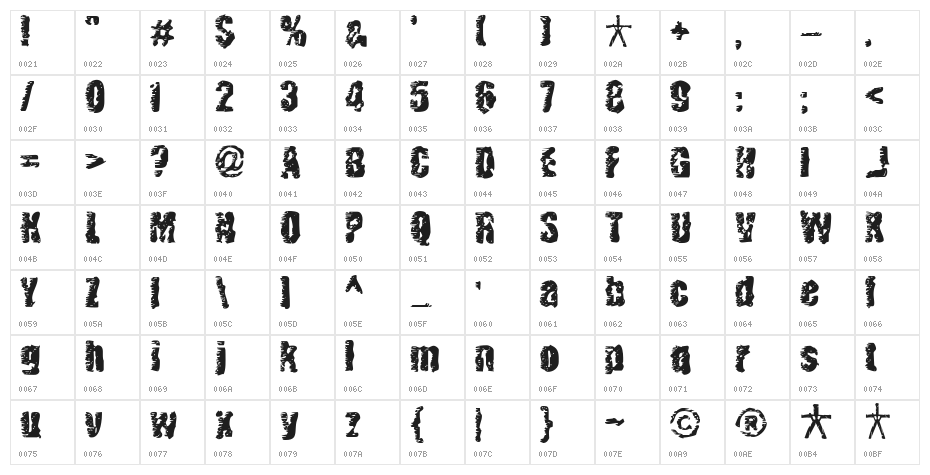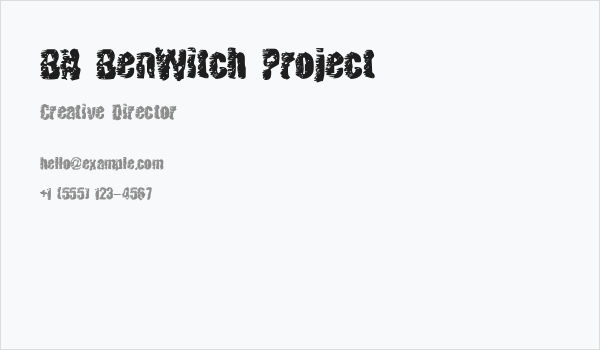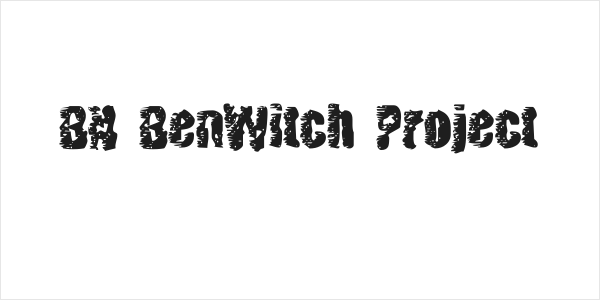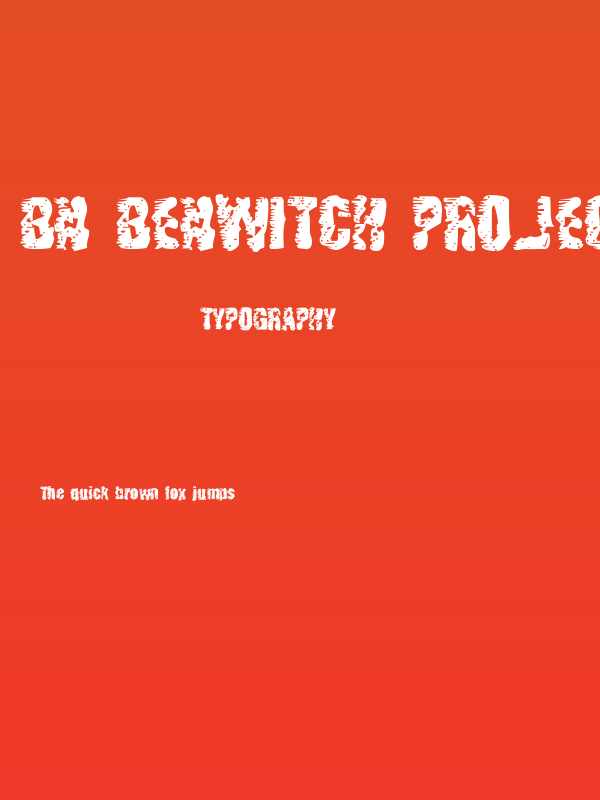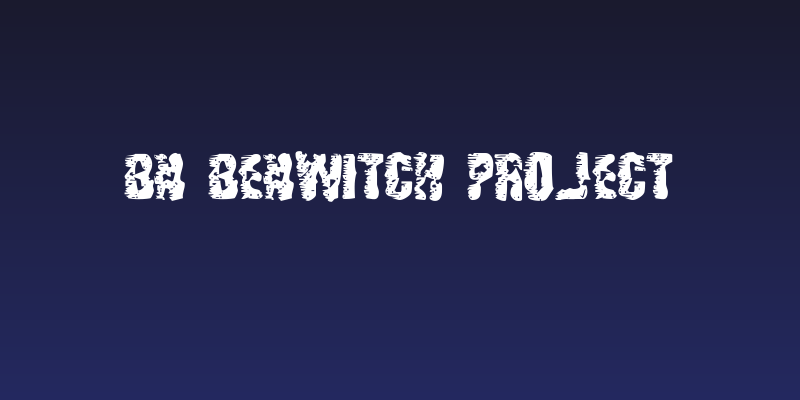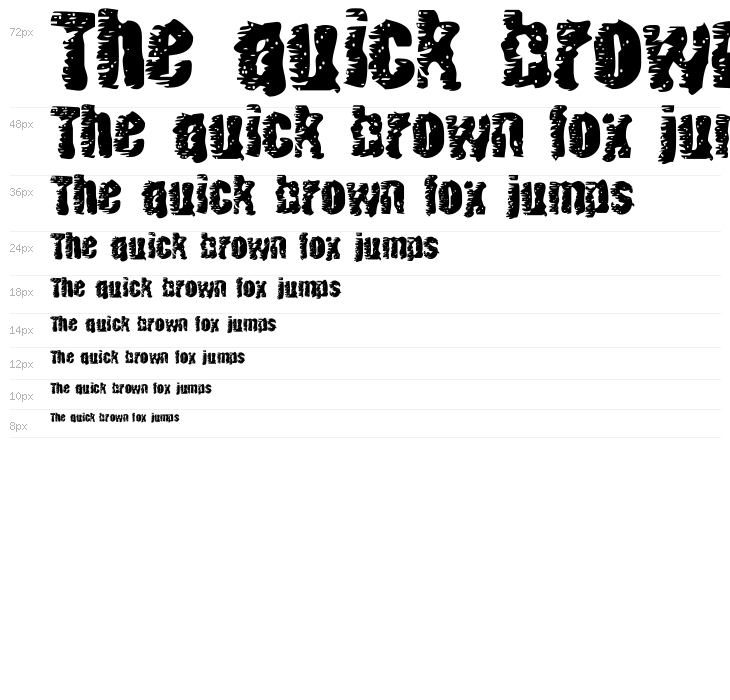
BN BenWitch Project Font
BN BenWitch Project Description
This font features a bold, distressed style with a rough, textured appearance that gives it a unique, edgy look. The characters are heavily stylized with irregular edges and a hand-crafted feel, making it ideal for projects that require a grunge or horror aesthetic. The uppercase and lowercase letters maintain a consistent design, with numbers and special characters following the same theme. This font is perfect for creating eye-catching titles, posters, or any design that needs a dramatic, impactful typeface.
| Use Case | Headlines, Posters, Logos |
| Proposed Projects | Perfect for horror movie posters, Halloween event flyers, edgy album covers, or any project needing a dramatic, grunge aesthetic. |